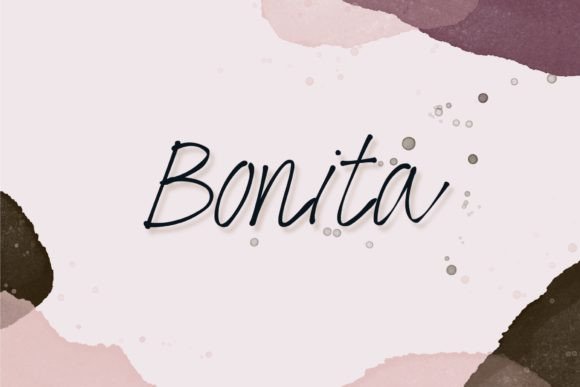
Discovering the Perfect Script: Bonita Font
Have you ever been working on a design project, and you just can’t seem to find the right font to capture the essence of your idea? I know I have! The struggle is real, but it’s moments like those that remind us why we love design in the first place – the thrill of the hunt, the excitement of discovery, and the satisfaction of bringing our vision to life.
Enter the Bonita Font, a beautiful, italic type script font that’s perfect for a variety of purposes, from wedding invitations to food labels and beyond. Its elegant, flowing lines make it a versatile choice for designers looking to add a touch of sophistication and whimsy to their work. And the best part? The Bonita Font is incredibly valuable for designers, offering a level of customization and flexibility that’s hard to find in other fonts.
Bonita Font Key Features
- Unique Characteristics: Bonita Font features a distinctive, elegant script style with flowing connections between letters, making it ideal for invitations, wedding stationery, and other creative projects.
- Font Style: Bonita Font comes in two main styles: Regular and Script, allowing designers to choose the perfect style to match their project’s tone and aesthetic.
Bonita Font Review
As a designer, I was excited to dive into the Bonita Font and see what it had to offer. Here’s my honest review.
- Beautiful, elegant script: The Bonita Font has a gorgeous, flowing script that’s perfect for creating a sophisticated and luxurious feel.
- Highly legible: Despite its decorative nature, the font is still easy to read, making it suitable for body text and even titles.
- Perfect for wedding invitations and special occasions: The Bonita Font’s elegant script and luxurious feel make it a great choice for wedding invitations, baby showers, and other special events.
- Not suitable for large blocks of text: The Bonita Font’s decorative nature makes it better suited for short paragraphs or titles, rather than large blocks of text.
- Lack of versatility: While the font is great for specific occasions, it may not be the best choice for everyday use or more casual projects.
The Bonita Font is a beautiful and elegant script that’s perfect for creating a luxurious feel. While it may not be suitable for all projects, it’s a great choice for wedding invitations, special occasions, and other events that call for a touch of sophistication.
Tips for Getting the Most Out of Bonita Font
For optimal results, use Bonita Font in conjunction with a clean and simple design. Avoid using too many font sizes or styles, as this can create visual clutter. Additionally, use bold or italic font styles sparingly to add emphasis.
Bonita Font is ideal for use in wedding invitations, baby shower invitations, and other special occasion graphics. It’s also great for creating a vintage or retro-inspired look in your designs.
Alternatives to Bonita Font for Designers
Great Vibes Font is a modern, elegant, and highly legible font. It is ideal for use in magazines, newspapers, and other publications where a clear and sophisticated look is desired. Great Vibes Font is more cursive and flowing compared to Bonita Font, making it better suited for titles and headings.
Carolyna Pro Font is a clean and minimalist sans-serif font. It is perfect for use in modern branding, digital products, and corporate materials where a simple and professional look is required. Carolyna Pro Font is more geometric and clean compared to Bonita Font, making it better suited for body text and digital interfaces.
Q: What is the recommended font size and line height for optimal readability with Bonita Font?
The recommended font size for optimal readability with Bonita Font is between 12 and 14 points, with a line height of at least 1.5 times the font size. This will ensure that the text is clear and easy to read, even at smaller font sizes.